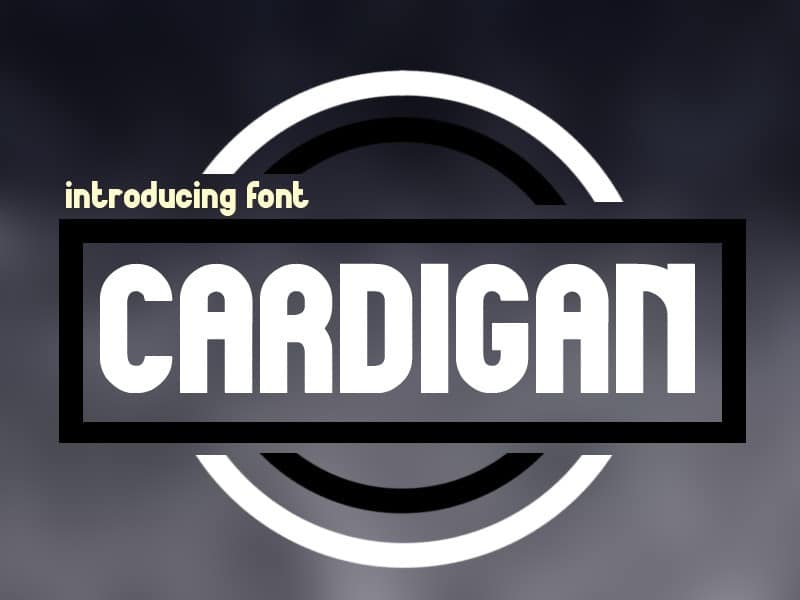
Cardigan Display Font
Cardigan Display Font is a modern, clean and stylish font. It’s designed and shared by sartstudio. This typeface is a Minimalist Modern Elegant Typeface with Web-fonts. It’s a very versatile font that works great in large and small sizes. Cardigan would perfect for branding, logos, headlines, Captions. or simply as a stylish text overlay to any background image.